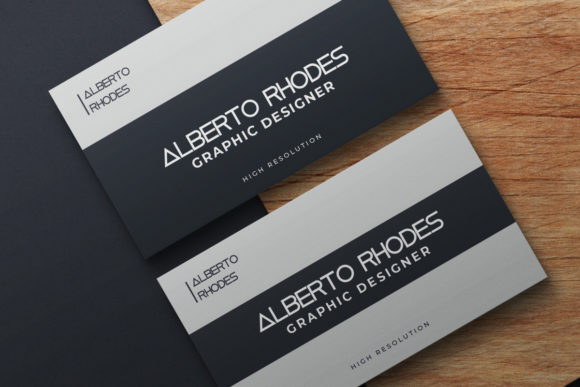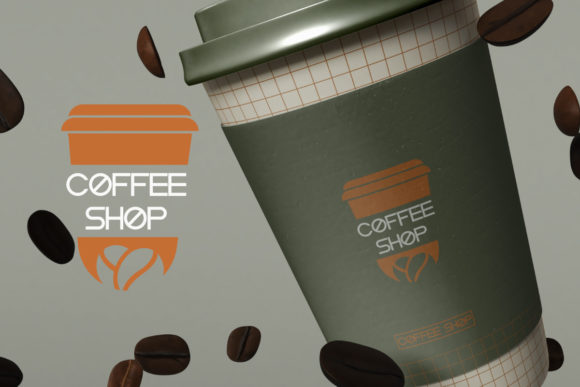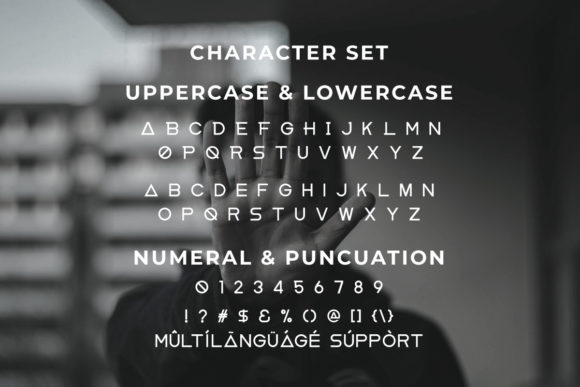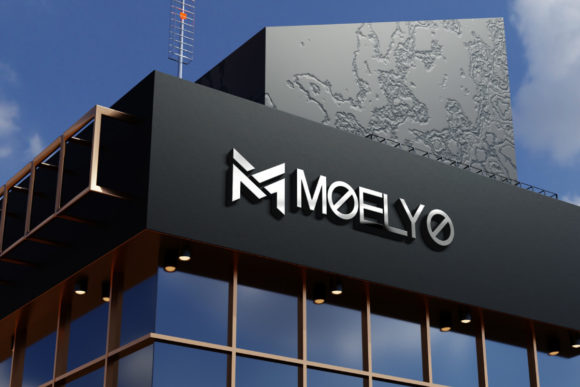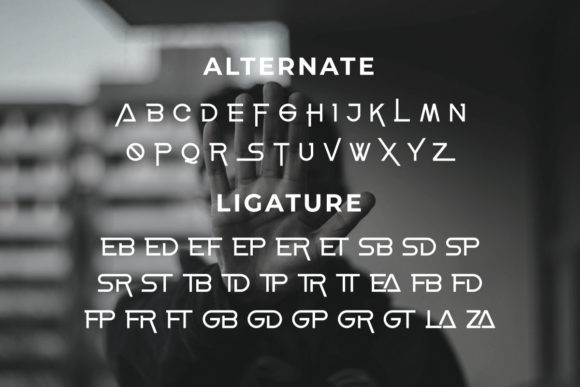
Introducing FreeStop Font: Elevate Your Designs with a Unique Sans Serif Style
In the world of digital design, fonts play a crucial role in conveying messages, evoking emotions, and creating lasting impressions. For designers and crafters looking to add a modern touch to their projects, the FreeStop font is an excellent choice. This unique and modern sans serif font boasts awesome style characters that can bring a special effect to your creative ideas.
What Makes FreeStop Font Stand Out?
FreeStop font is designed with a distinct style that sets it apart from other fonts in the sans serif category. Its clean lines, modern aesthetic, and unique character set make it perfect for a wide range of applications, including games, technology, events, headlines, logos, posters, titles, product packaging, and more.
One of the key features of FreeStop font is its PUA (Private Use Area) encoding. This means that you can easily access all the glyphs and swashes, giving you greater flexibility and creative control over your designs. Whether you’re looking to add a touch of elegance or a dash of playfulness, FreeStop font has got you covered.
FreeStop font’s versatility makes it an excellent choice for various design projects. Here are some of the ways you can use this amazing font:
- Games: Add a modern touch to your game titles, menus, and UI elements with FreeStop font.
- Technology: Use FreeStop font to create sleek and modern designs for tech-related projects, such as software interfaces, app icons, and website headers.
- Events: Make a statement with FreeStop font at your next event, whether it’s a conference, concert, or festival.
- Headlines: Grab attention with FreeStop font’s bold and modern style, perfect for headlines, titles, and subtitles.
- Logos: Create a lasting impression with a custom logo designed using FreeStop font.
- Posters: Add a pop of personality to your posters with FreeStop font’s unique style.
- Titles: Use FreeStop font to create eye-catching titles for your movies, videos, or presentations.
- Product Packaging: Stand out on store shelves with FreeStop font’s modern and sleek design.
Key Features of FreeStop Font
Here are some of the key features that make FreeStop font an excellent choice for designers and crafters:
- Unique and modern sans serif style
- Awesome style characters
- Works great for various design projects, including games, technology, events, headlines, logos, posters, titles, and product packaging
- Clean lines and modern aesthetic
In conclusion, FreeStop font is an excellent choice for designers and crafters looking to add a modern touch to their projects. Its unique and modern sans serif style, awesome style characters, and PUA encoding make it perfect for a wide range of applications. Whether you’re working on a game, technology project, event, or product packaging, FreeStop font is sure to bring a special effect to your creative ideas.